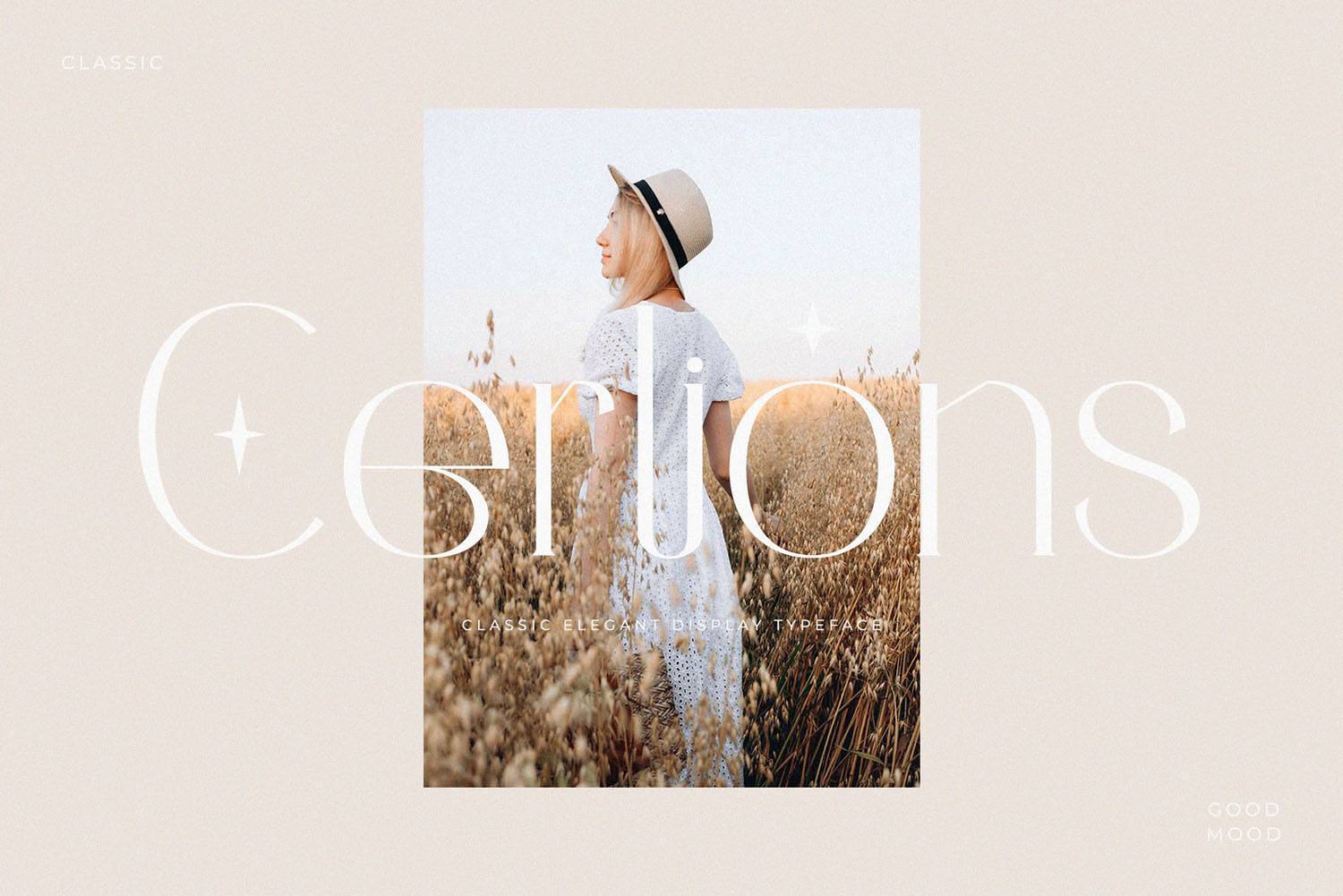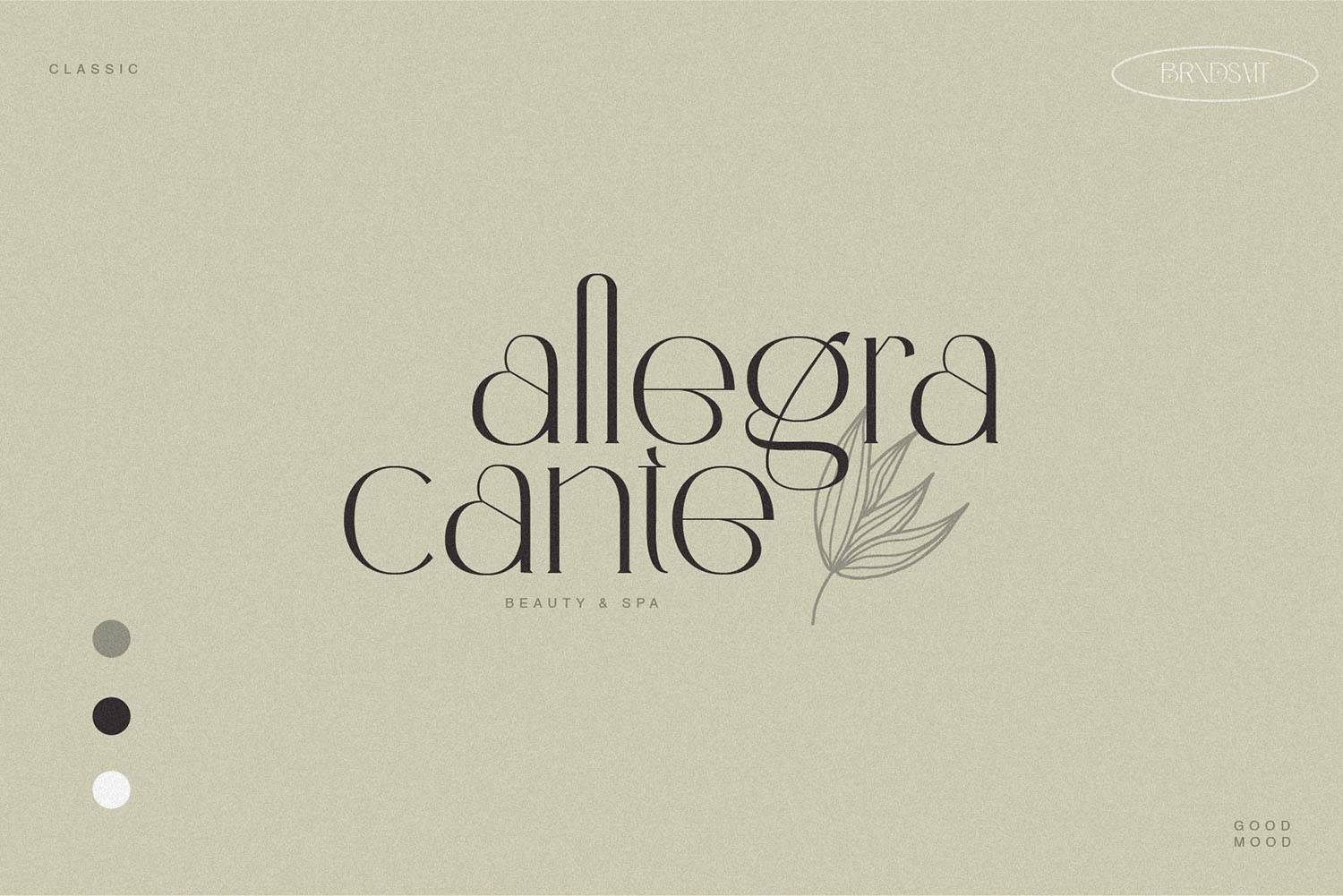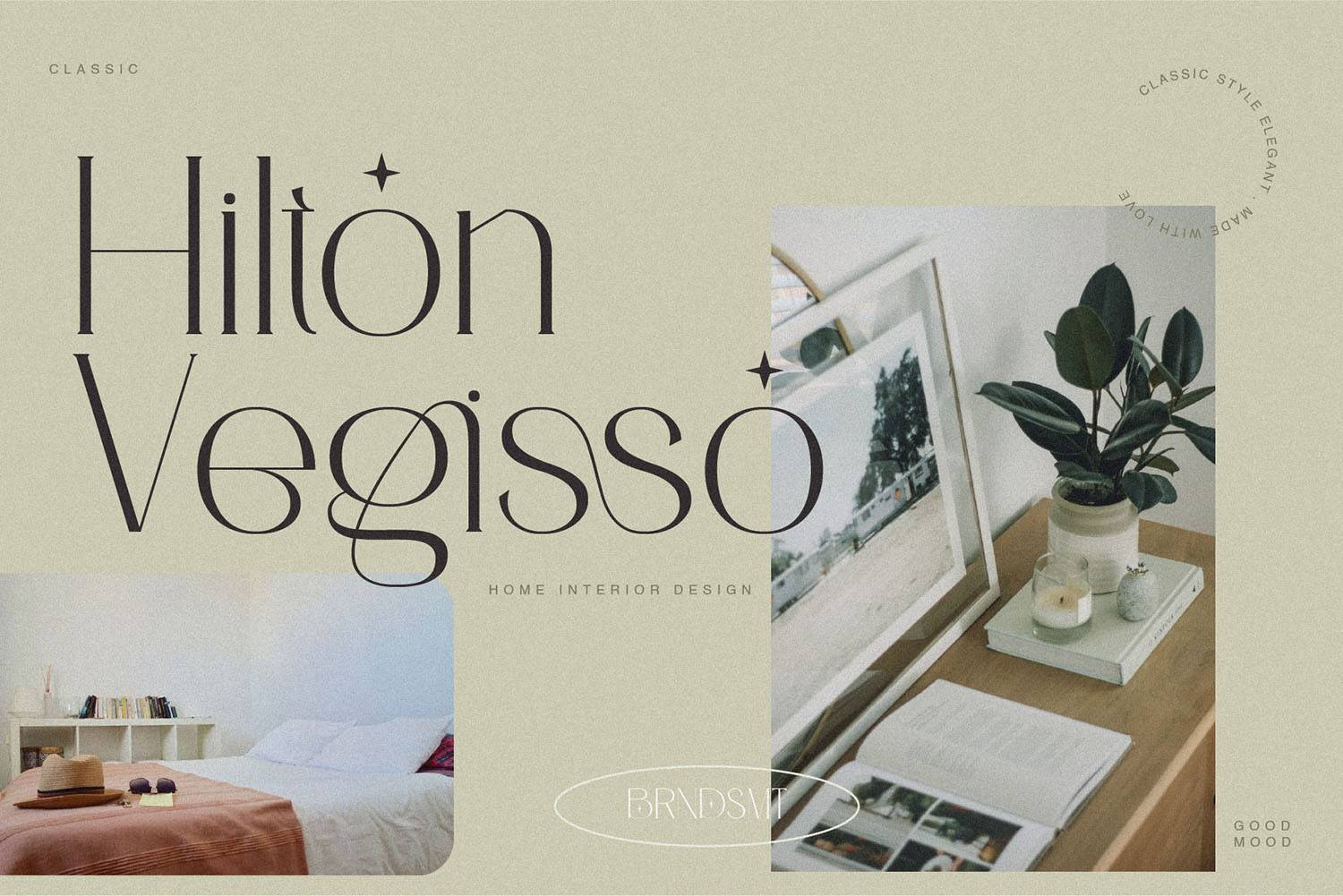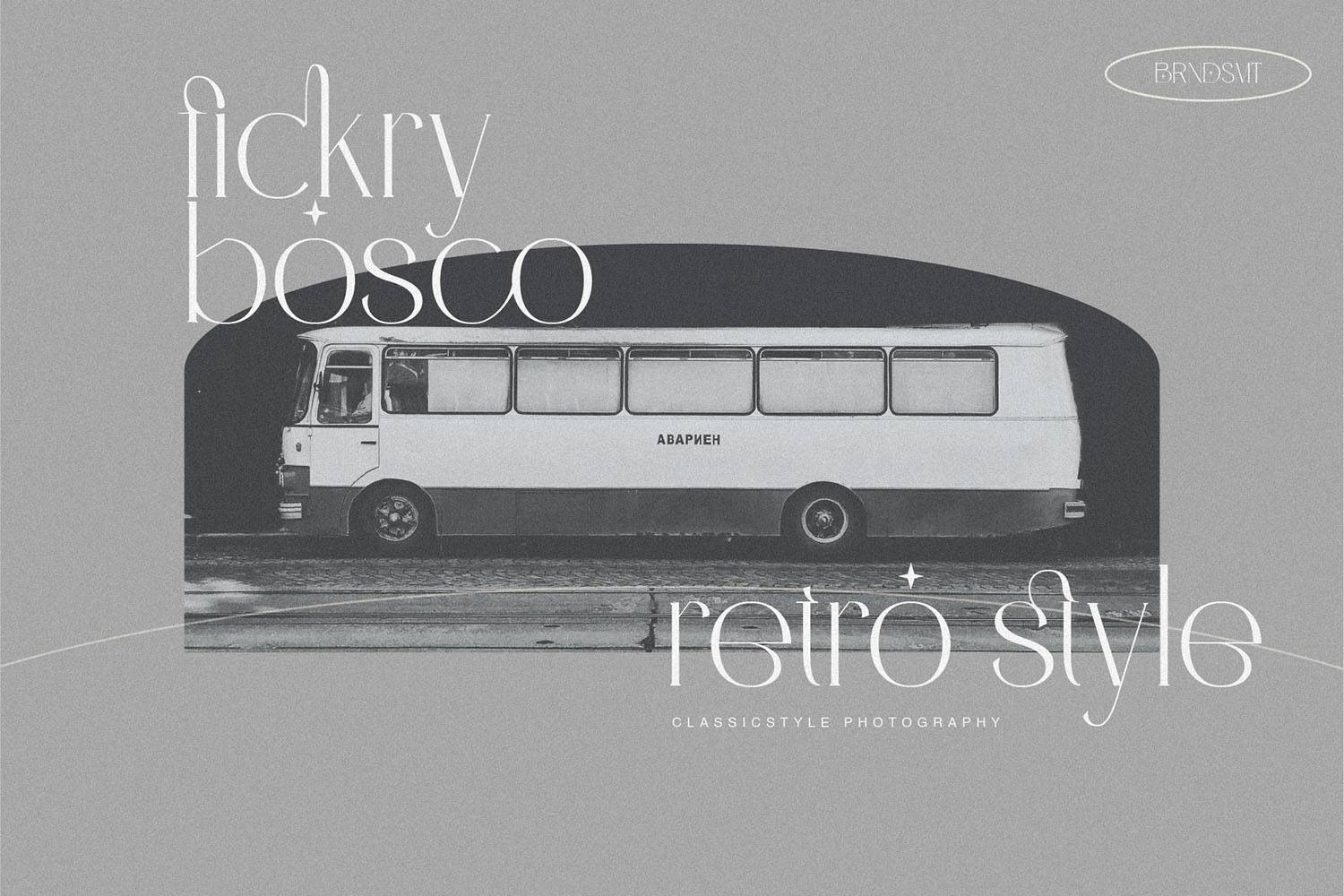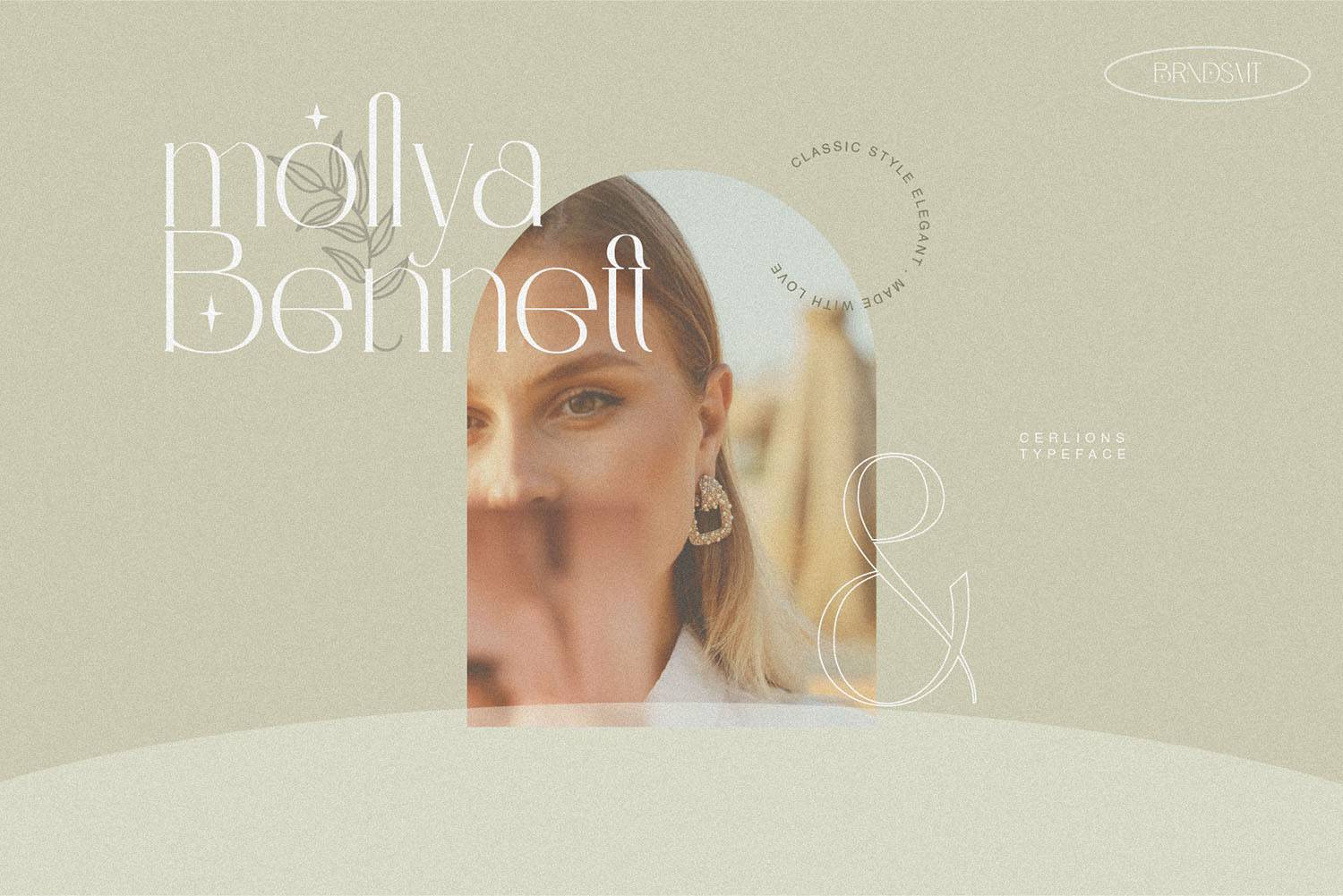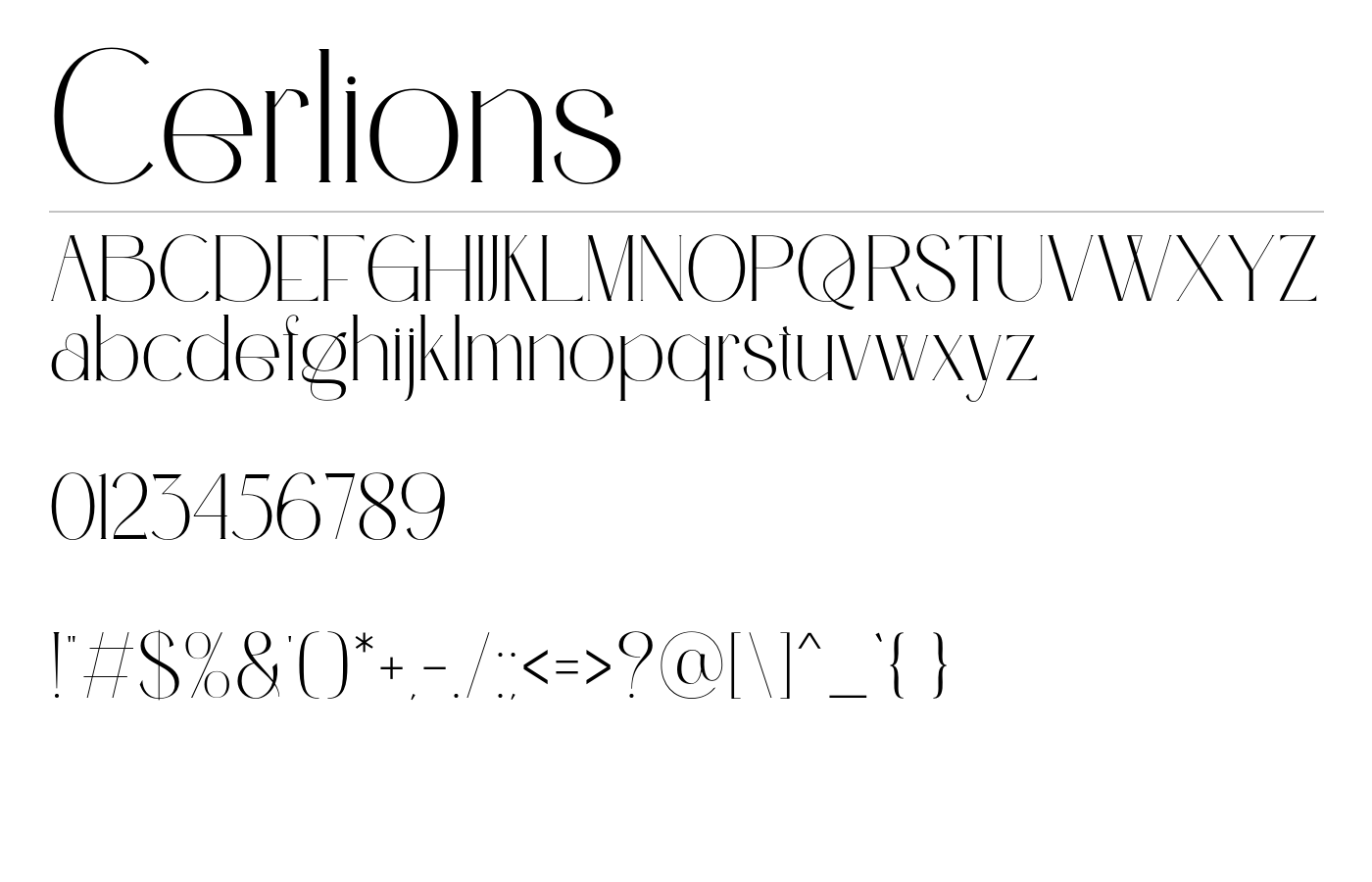
Cerlions is an elegant, modern serif font characterized by its very thin strokes and high contrast between thick and thin lines, giving it a refined and delicate appearance. Its tall, narrow letterforms with unique, artistic details like the stylized Q tail and single-story g make it perfect for sophisticated branding, fashion, editorial headlines, and upscale packaging. This font’s graceful and airy style adds a touch of luxury and exclusivity to any design, ideal for projects seeking a stylish and contemporary look.
Cerlions Font
About Cerlions Font
| Font family | Cerlions Font |
| Designer | Brandsemut |